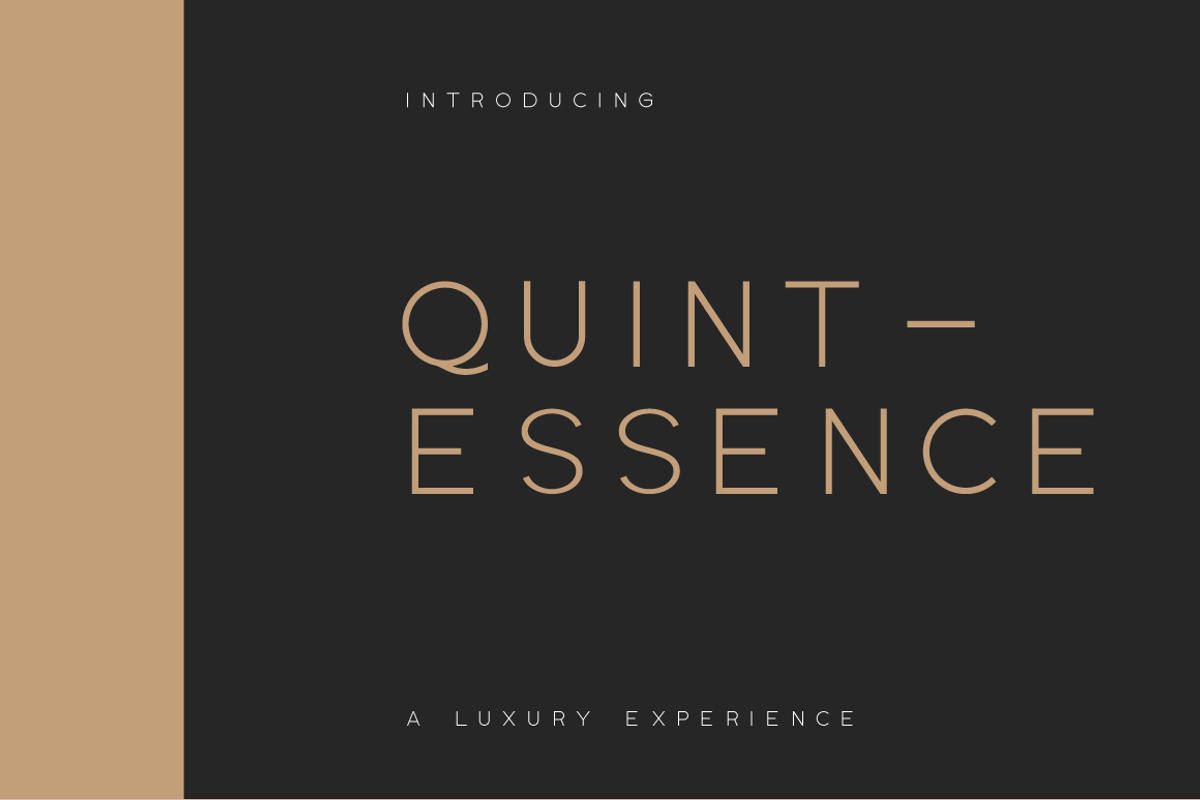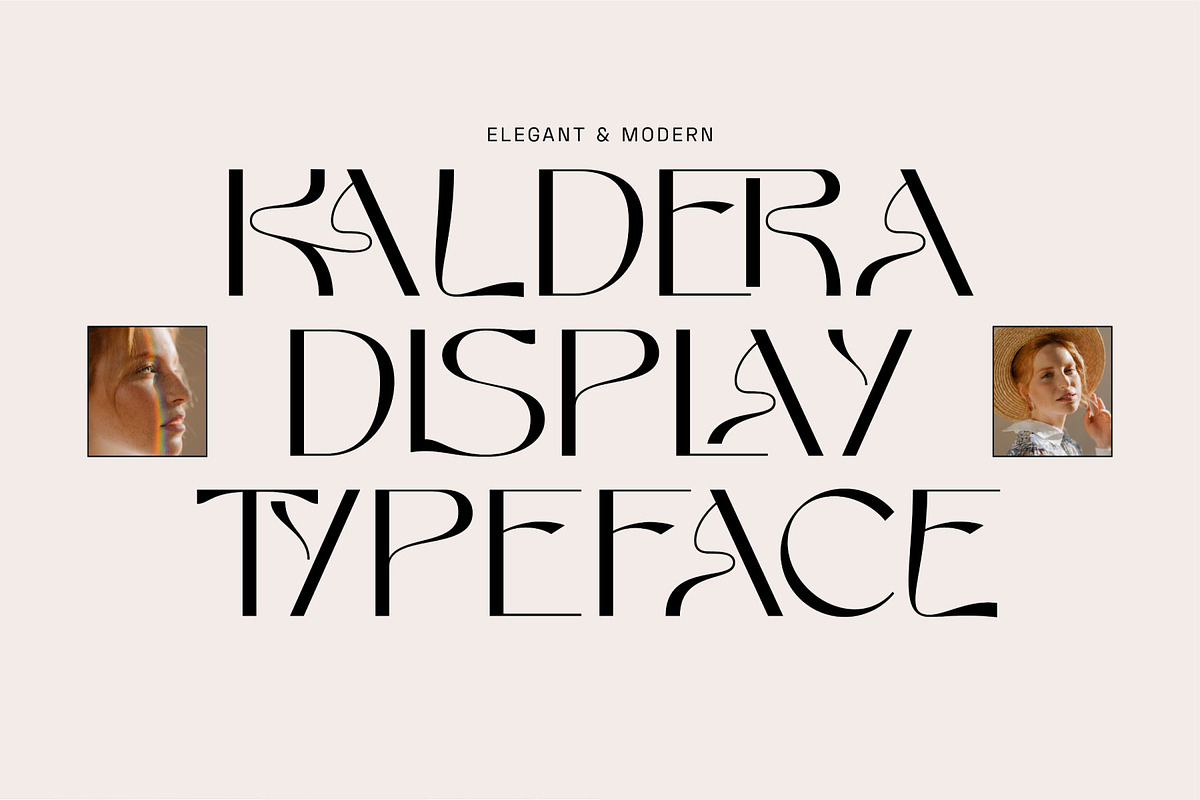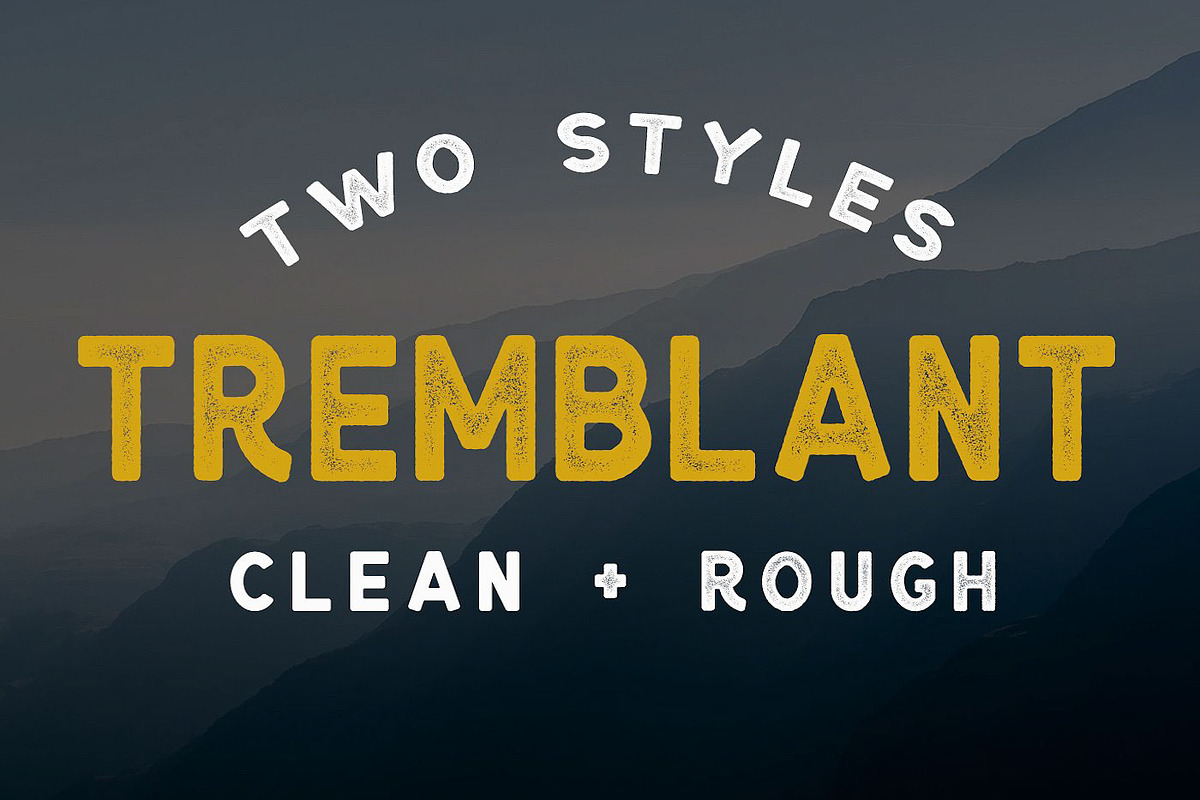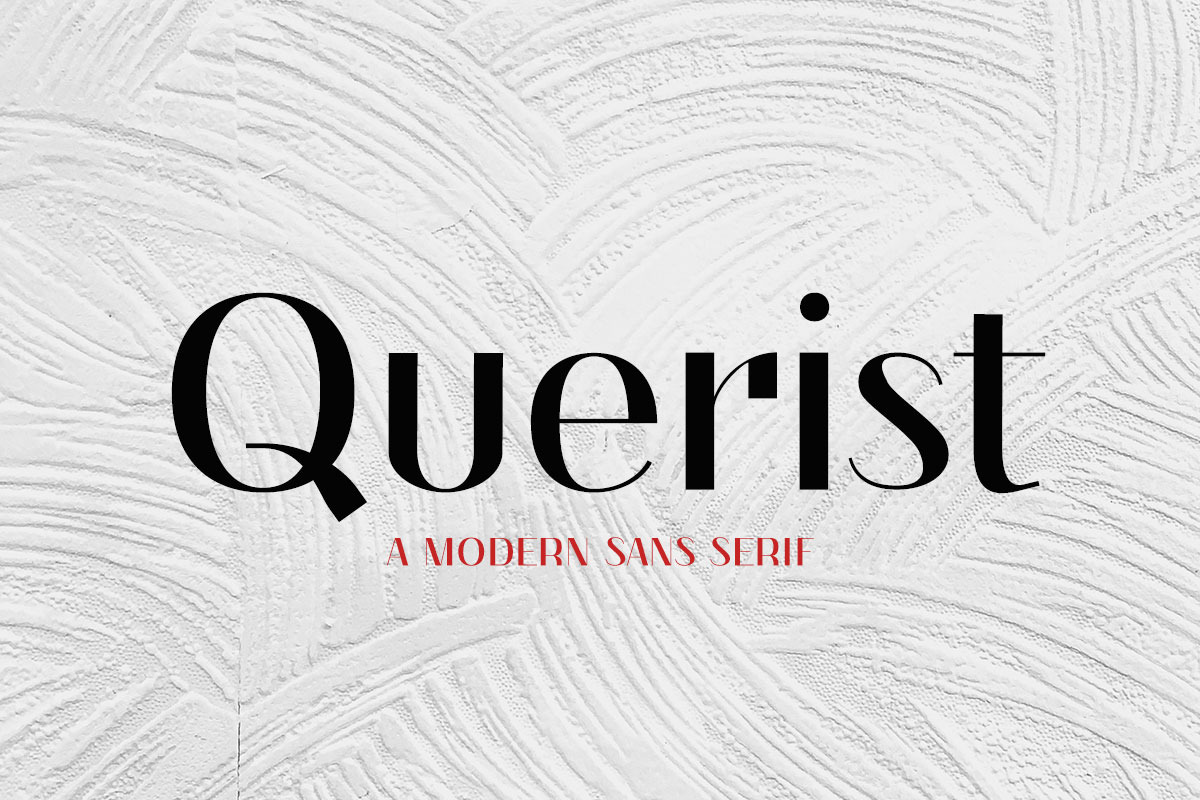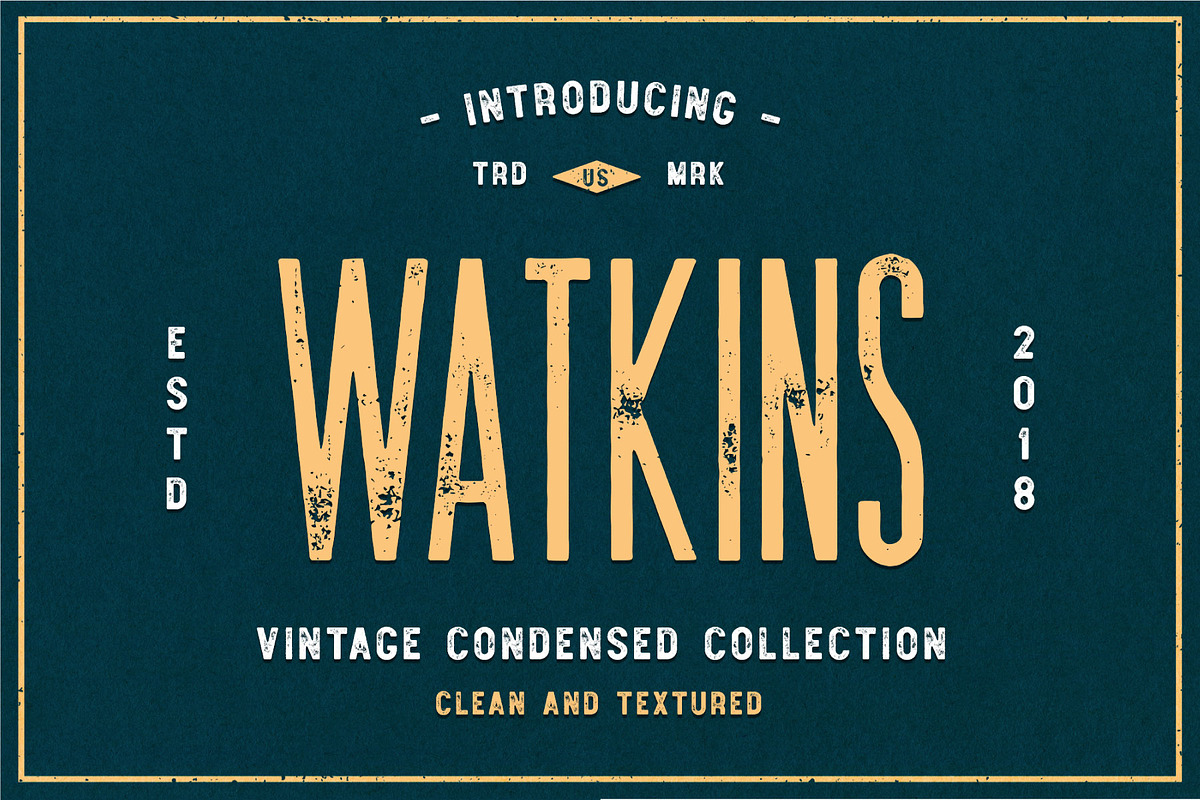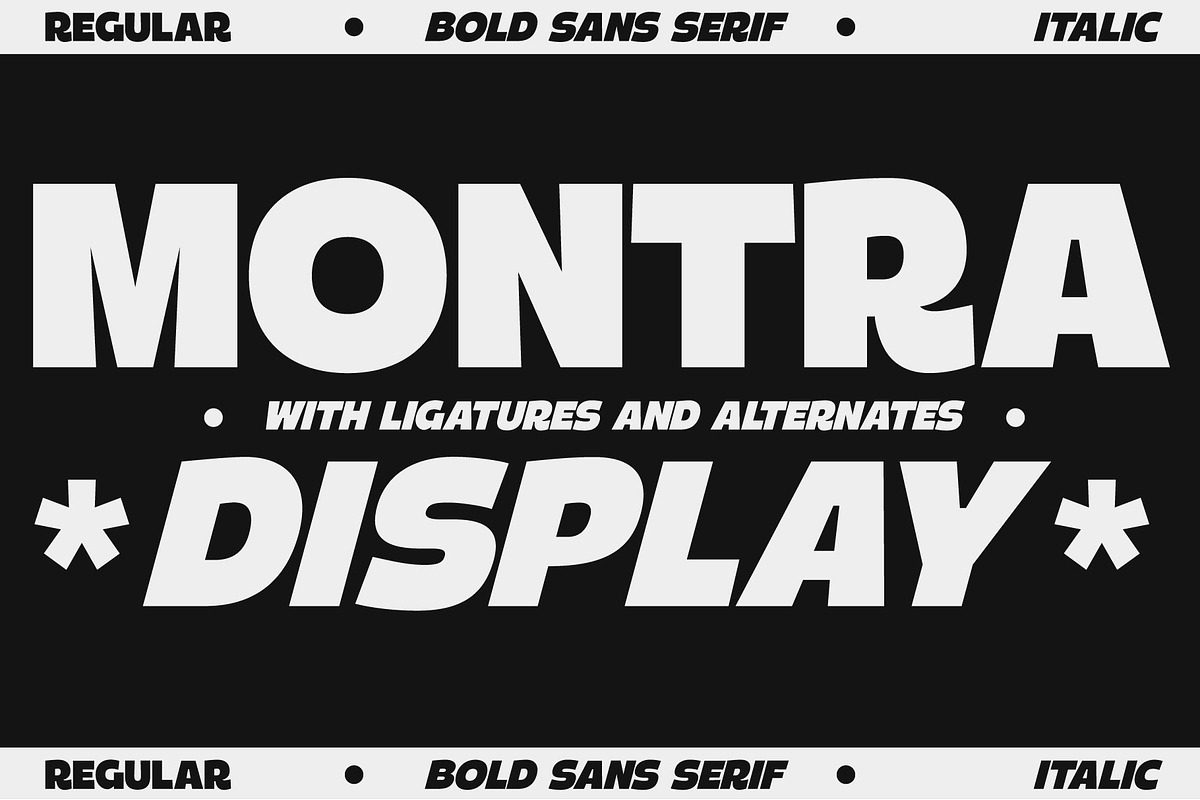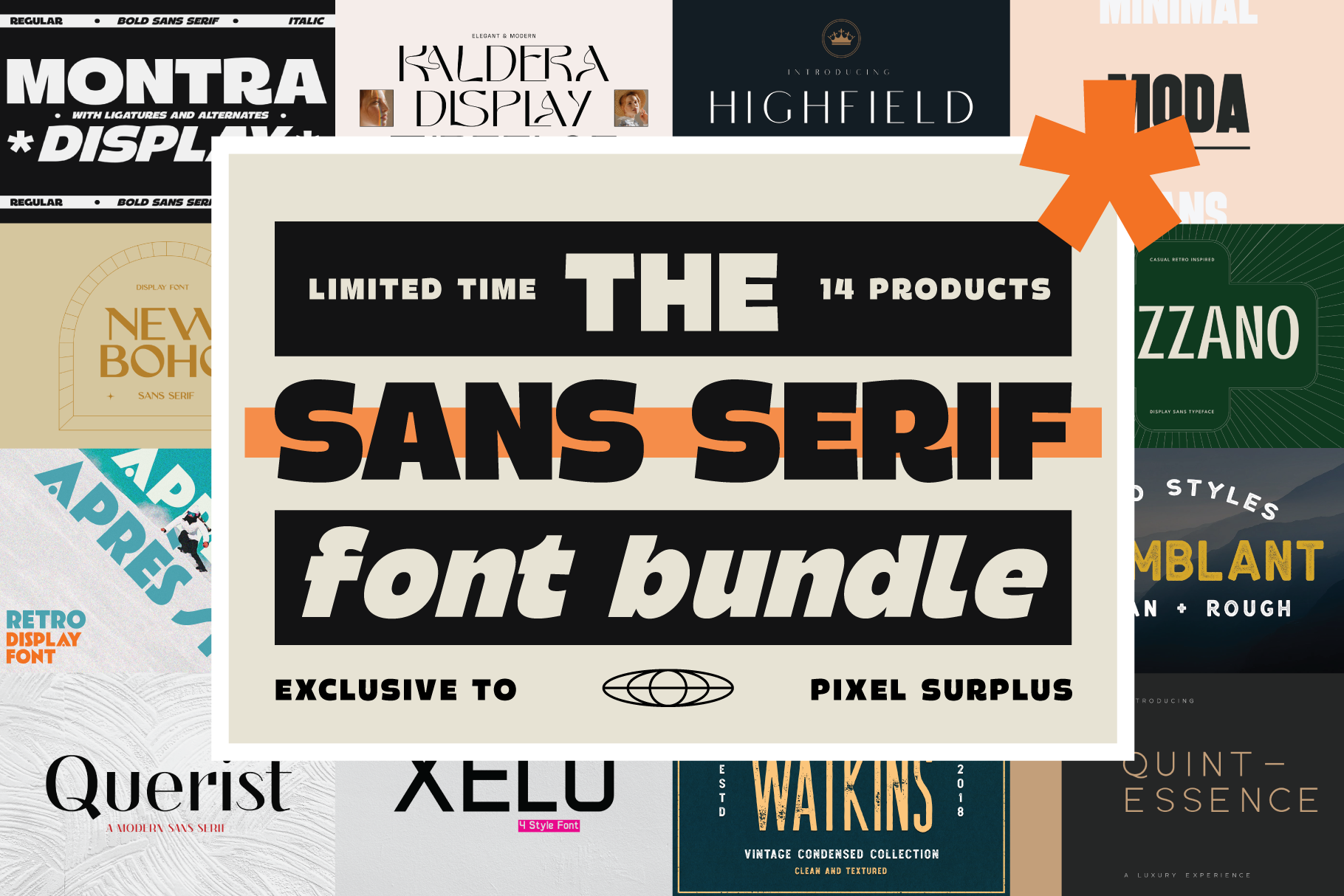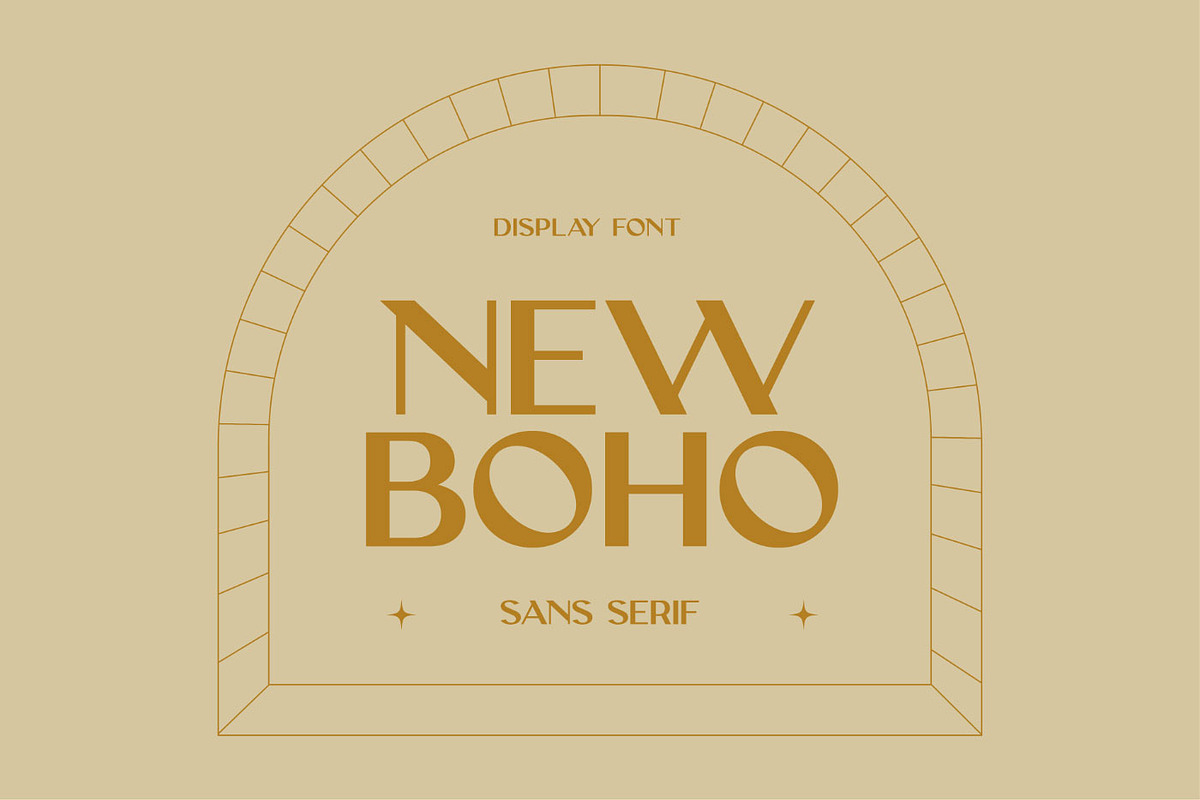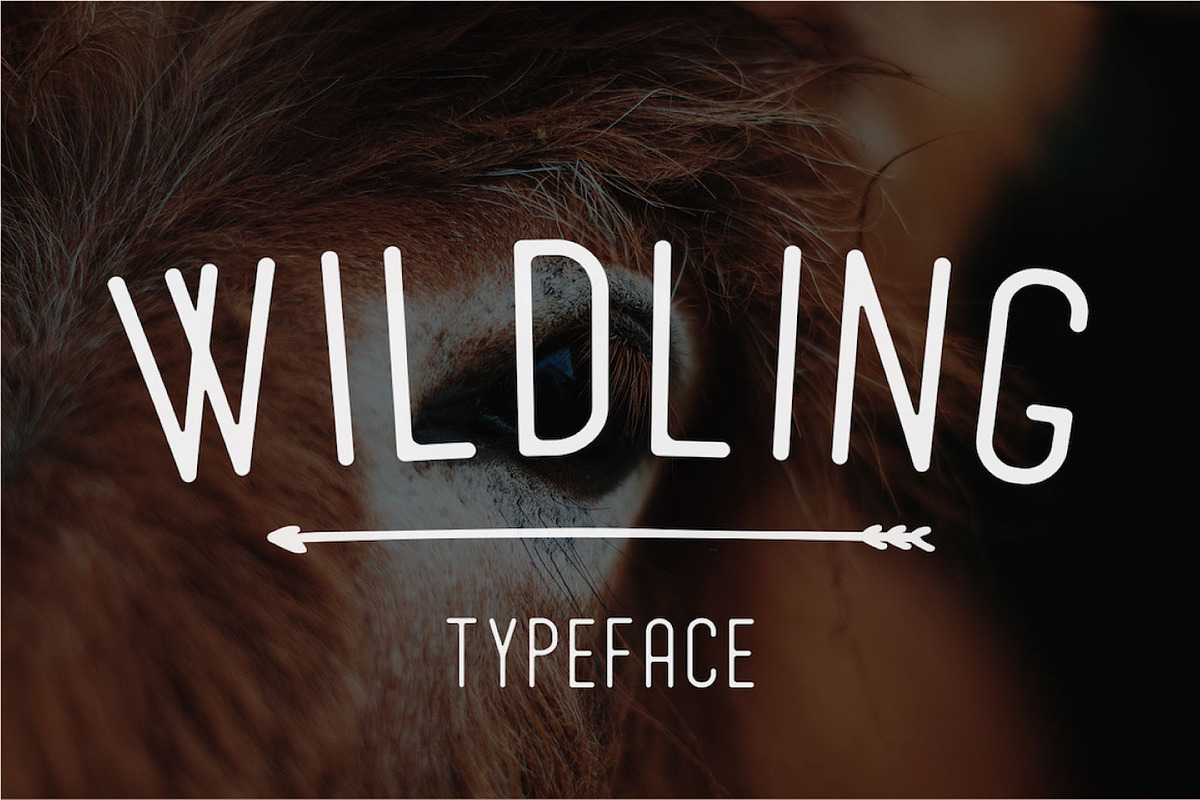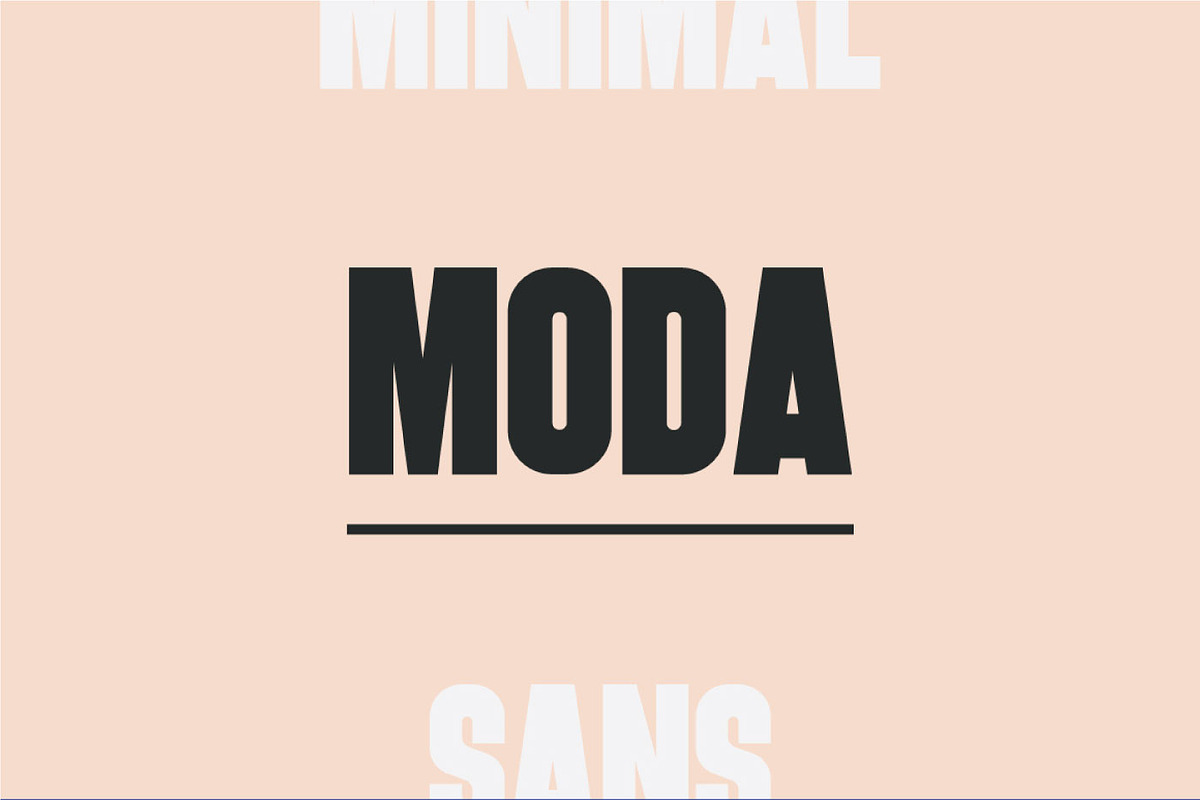
You'll get a variety of styles, including textured and aged vintage fonts, snazzy retro fonts, elegant modern fonts & unique ligature filled fonts.
This deal includes:
Montra Kaldera Highfield Mezzano Tremblant Après Ski Querist New Boho Quintessence Moda Watkins Qeber Xelo Wildling